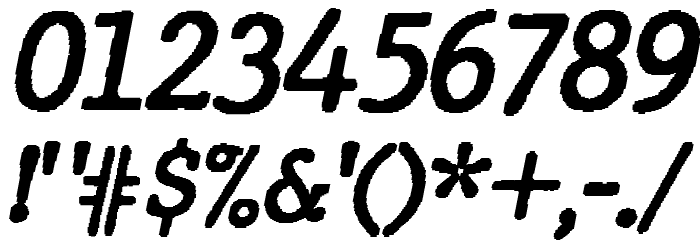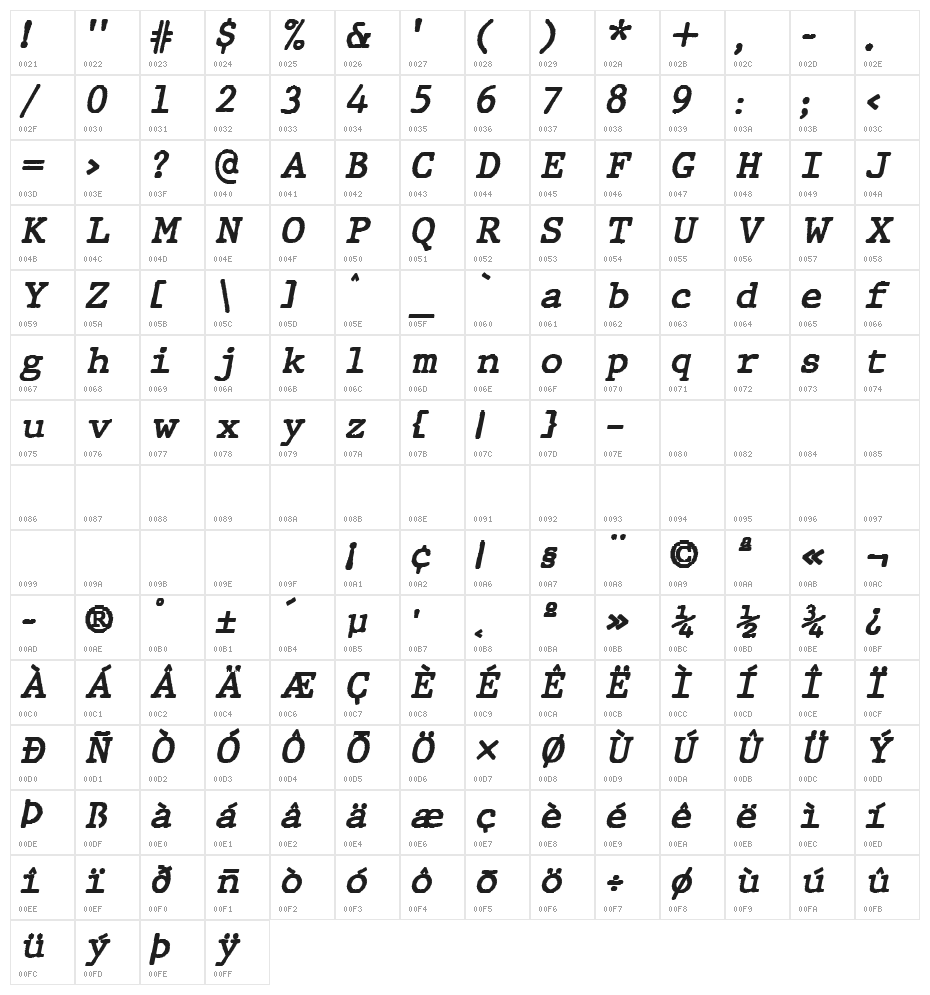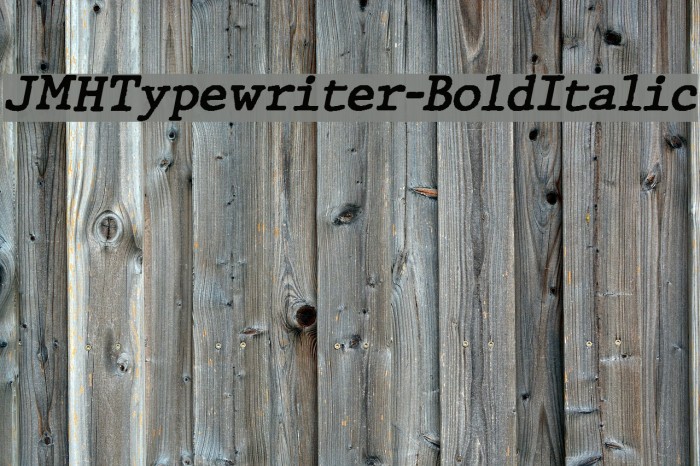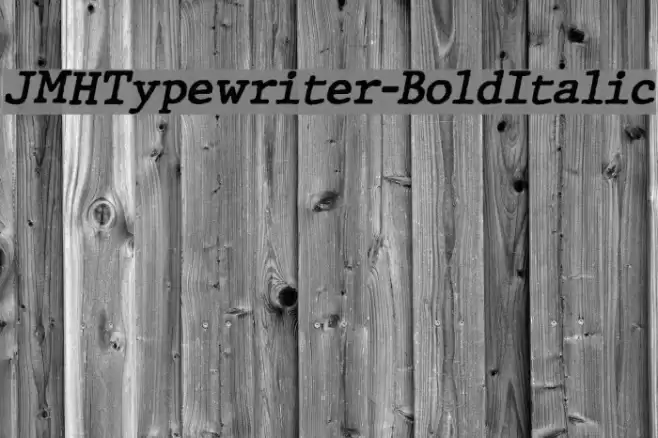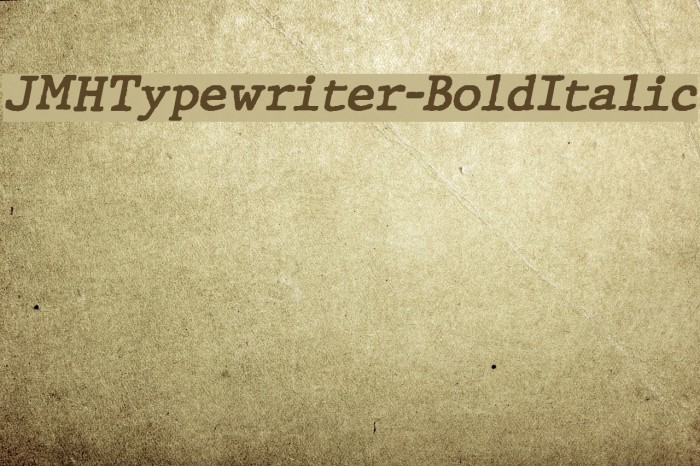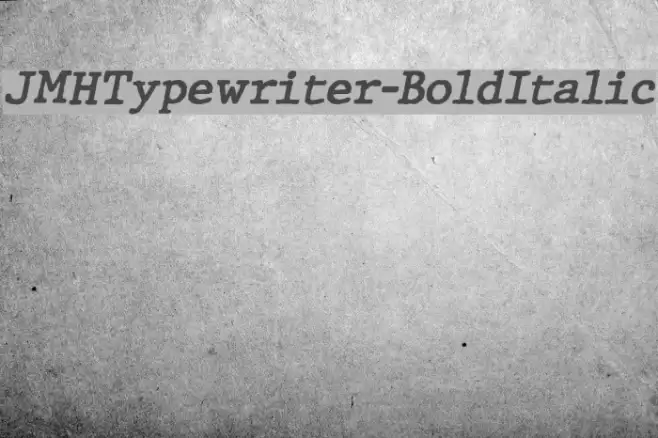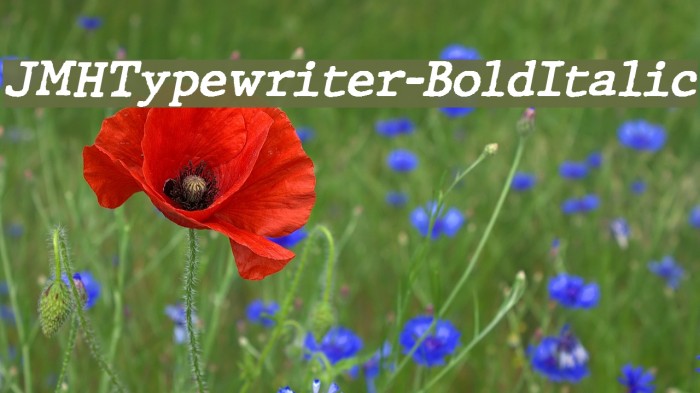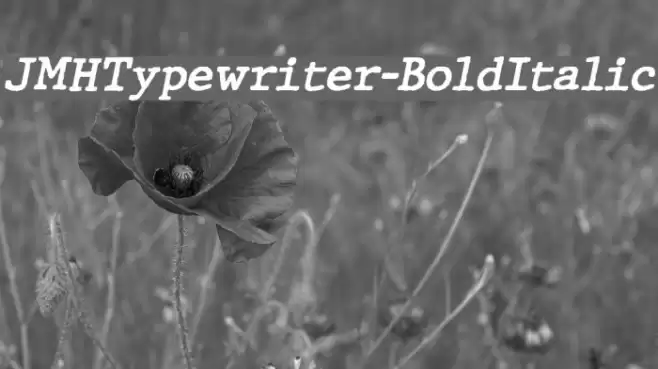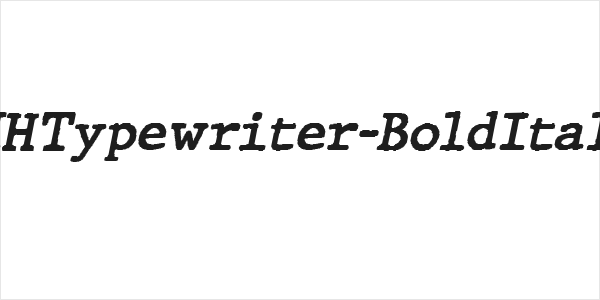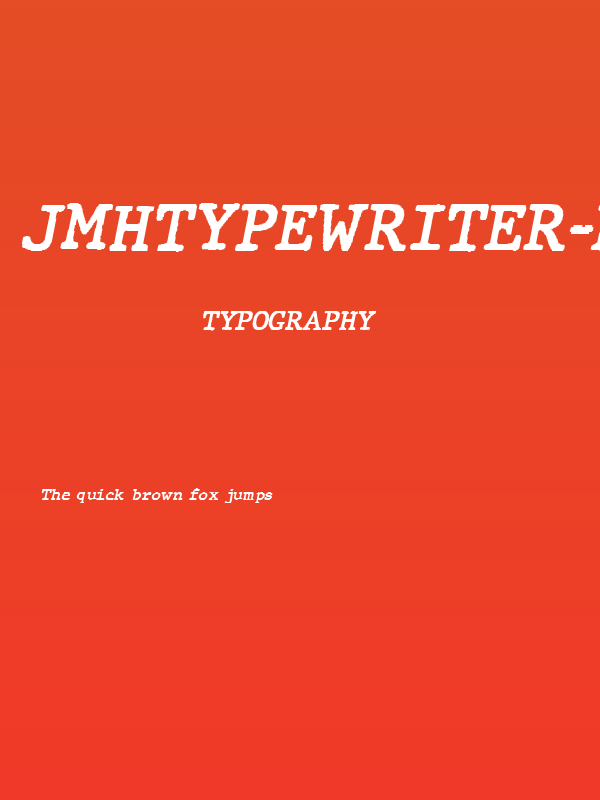
JMHTypewriter-BoldItalic Font
JMHTypewriter-BoldItalic Description
This typeface exudes a classic typewriter aesthetic with a bold and italicized style. The characters are monospaced, providing a uniform appearance that is reminiscent of traditional typewriter fonts. Each letter is distinct with a slight slant, enhancing the italic effect while maintaining readability. The boldness of the font adds a strong presence, making it suitable for impactful text. The numbers and special characters are consistent with the letterforms, ensuring a cohesive look across all glyphs. The font's design is both nostalgic and functional, ideal for projects requiring a vintage or retro feel.
| Use Case | Headlines, Logos, Creative writing projects |
| Proposed Projects | Ideal for retro-themed designs, typewriter simulations, creative writing projects, and any application requiring a vintage aesthetic. |